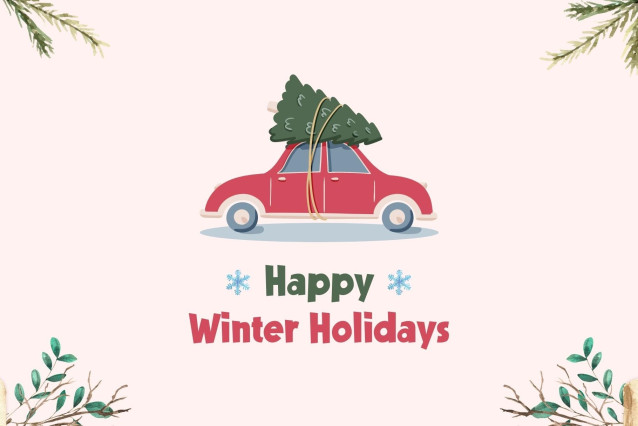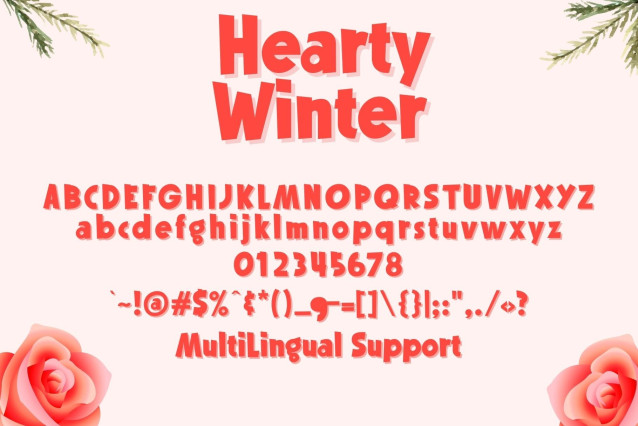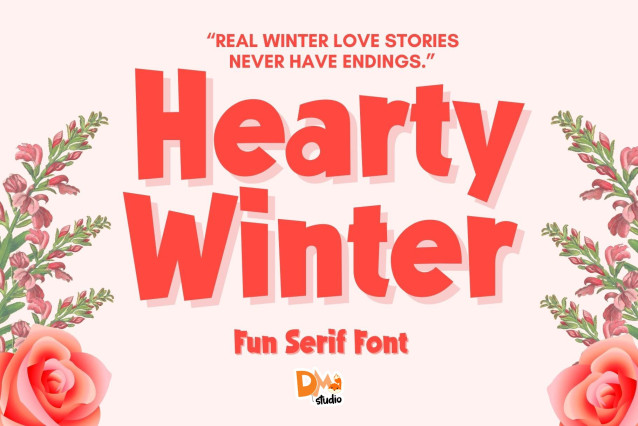
Hearty Winter Font
Hearty Winter Font is a warm and cheerful seasonal font designed to bring a touch of festive coziness to your winter-themed creations. With heart-shaped elements and rounded, soft letterforms, it’s perfect for holiday cards, seasonal branding, festive posters, and cozy crafts that aim to spread love and winter warmth.